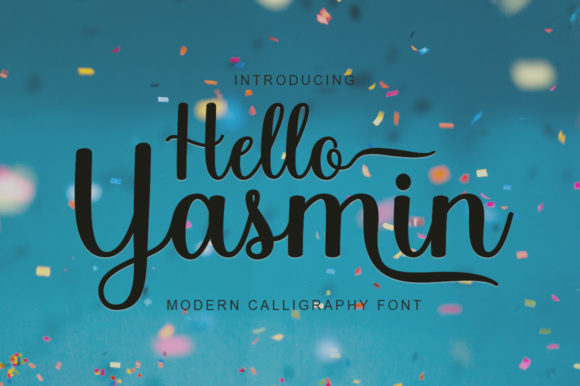
Prepare to experience the magic of Hello Yasmin, a captivating script font designed to ignite your creativity. Immerse yourself in its timeless allure and exquisite curves that dance across your designs, leaving an unforgettable impression. Feel the passion of the Stripes Studio's artistry as you witness each letter come to life with a touch of elegance and grace.
Unleash the endless possibilities of Hello Yasmin, the perfect companion for crafting logos that captivate and brand identities that stand out. Transform your words into captivating quotes that inspire and resonate with your audience. The font's thoughtful design and effortless flow lend a touch of sophistication to any project, effortlessly elevating your designs to new heights.
Embark on a journey of self-expression with Hello Yasmin. Let your imagination soar as you explore the nuances of its glyphs and swashes, creating designs that are both unique and visually stunning. Its PUA encoding grants you effortless access to a world of typographic wonders, empowering you to unleash your creativity without limits.
Indulge in the beauty and functionality of Hello Yasmin. Its timeless essence and versatile charm will become an indispensable asset in your design arsenal, igniting inspiration and fueling your passion for creating designs that leave a lasting impact. Embrace the allure of Hello Yasmin today and unlock a world of endless possibilities.